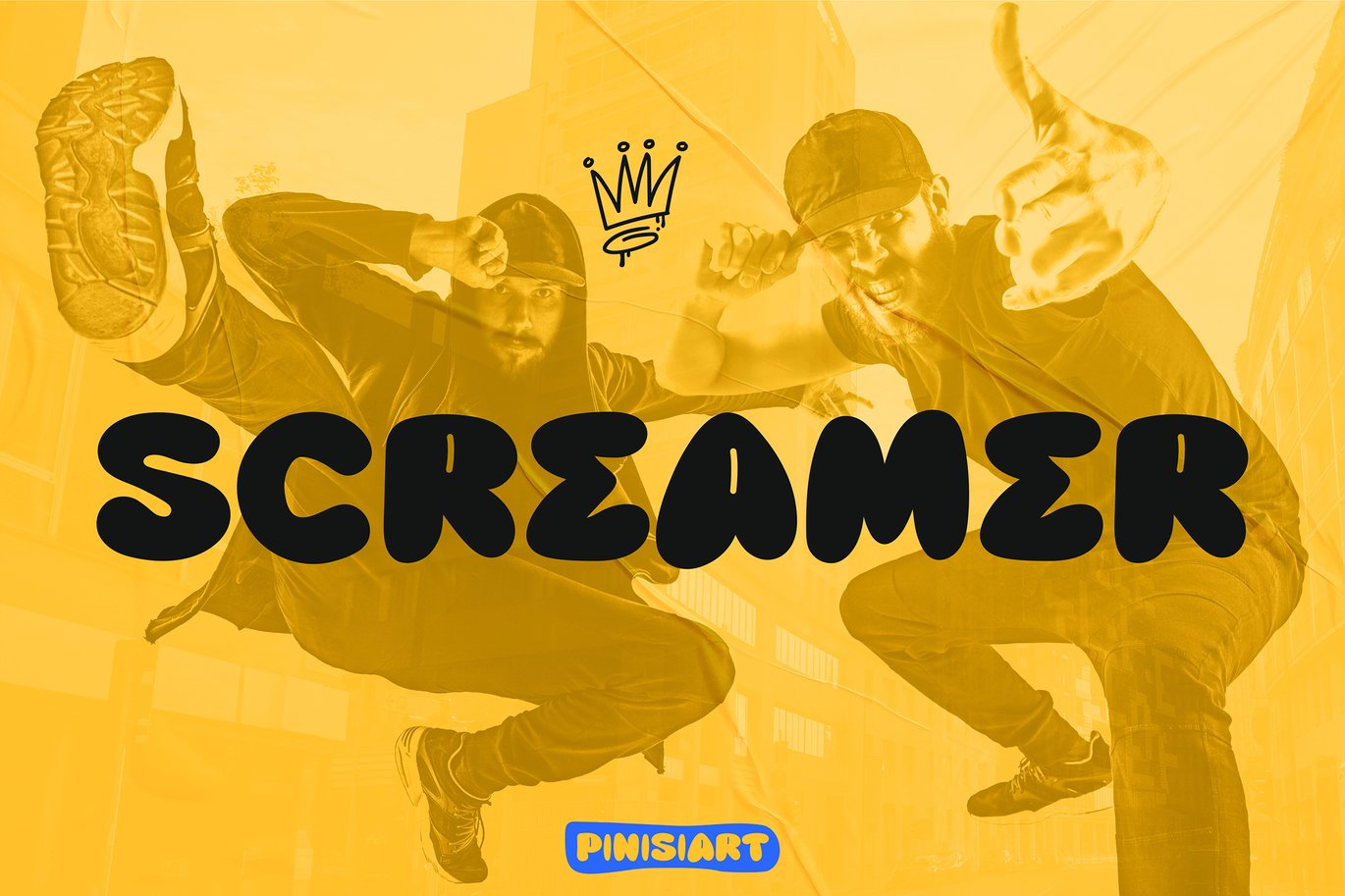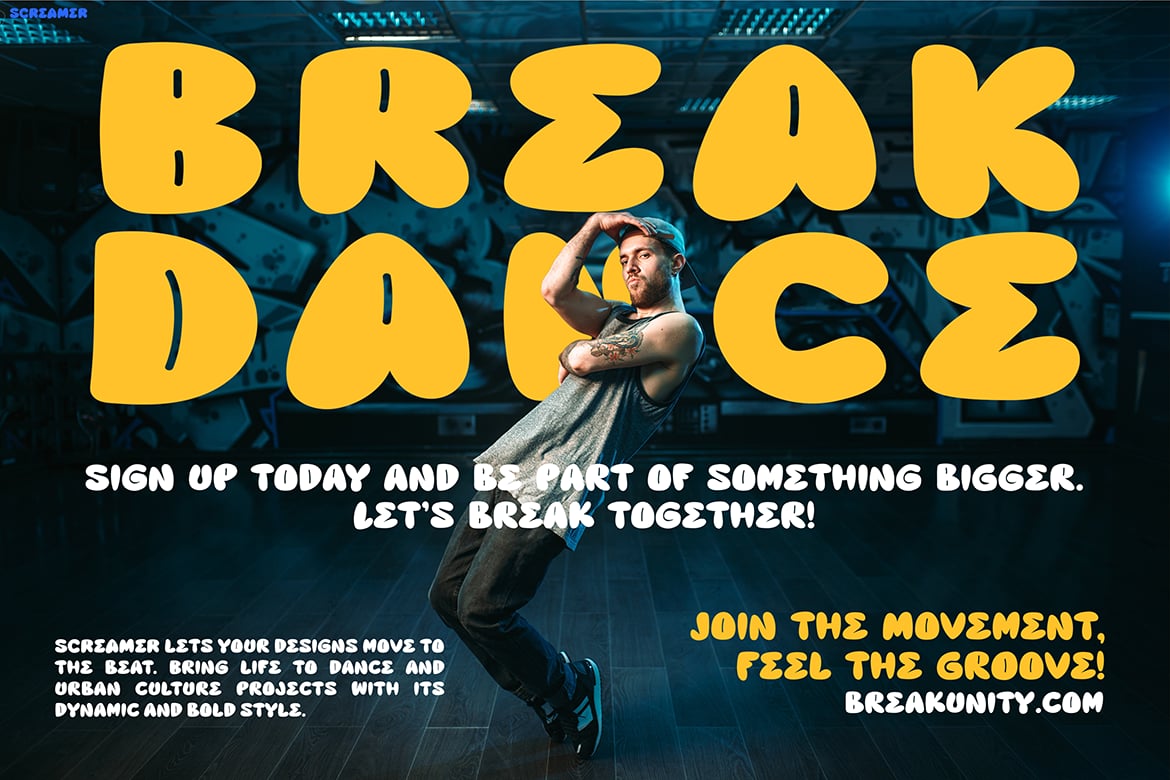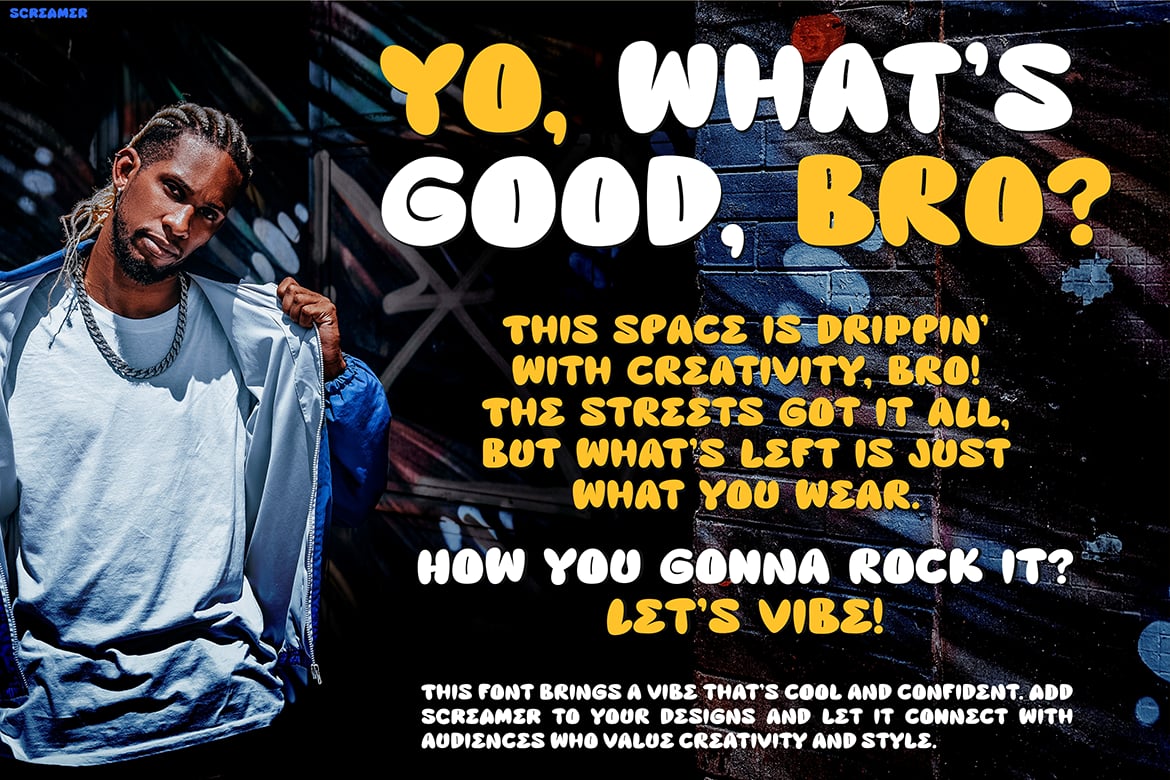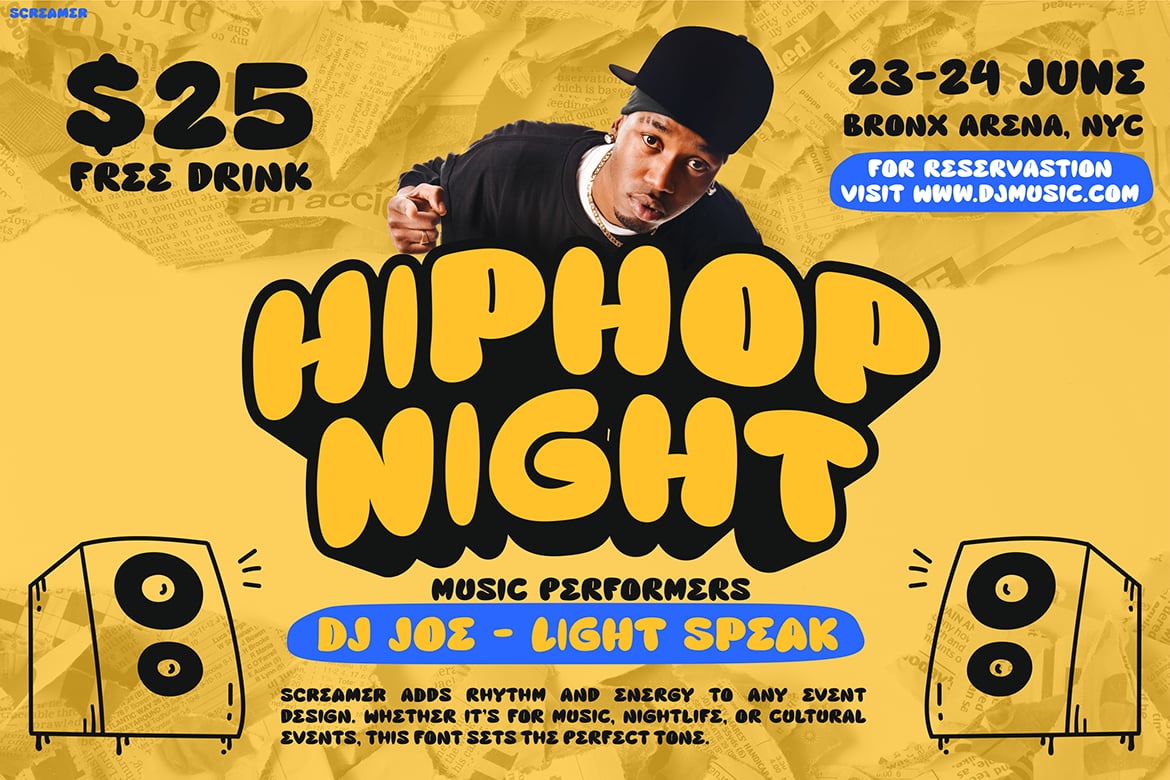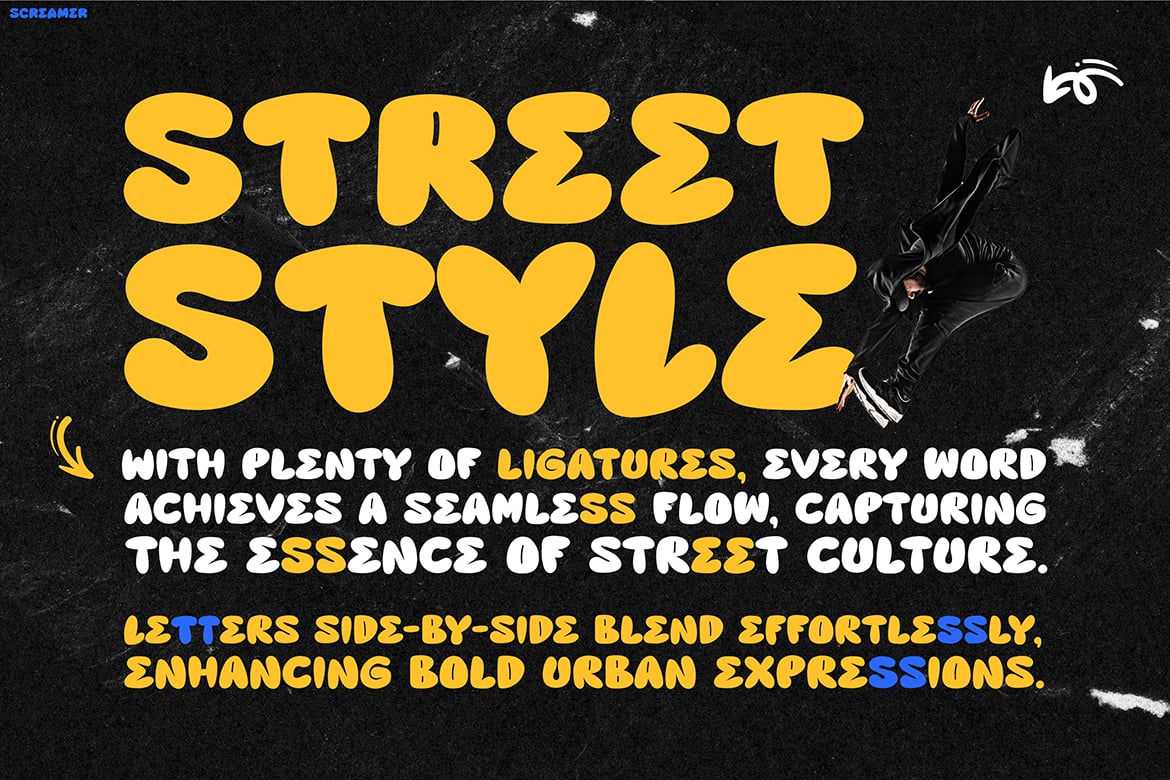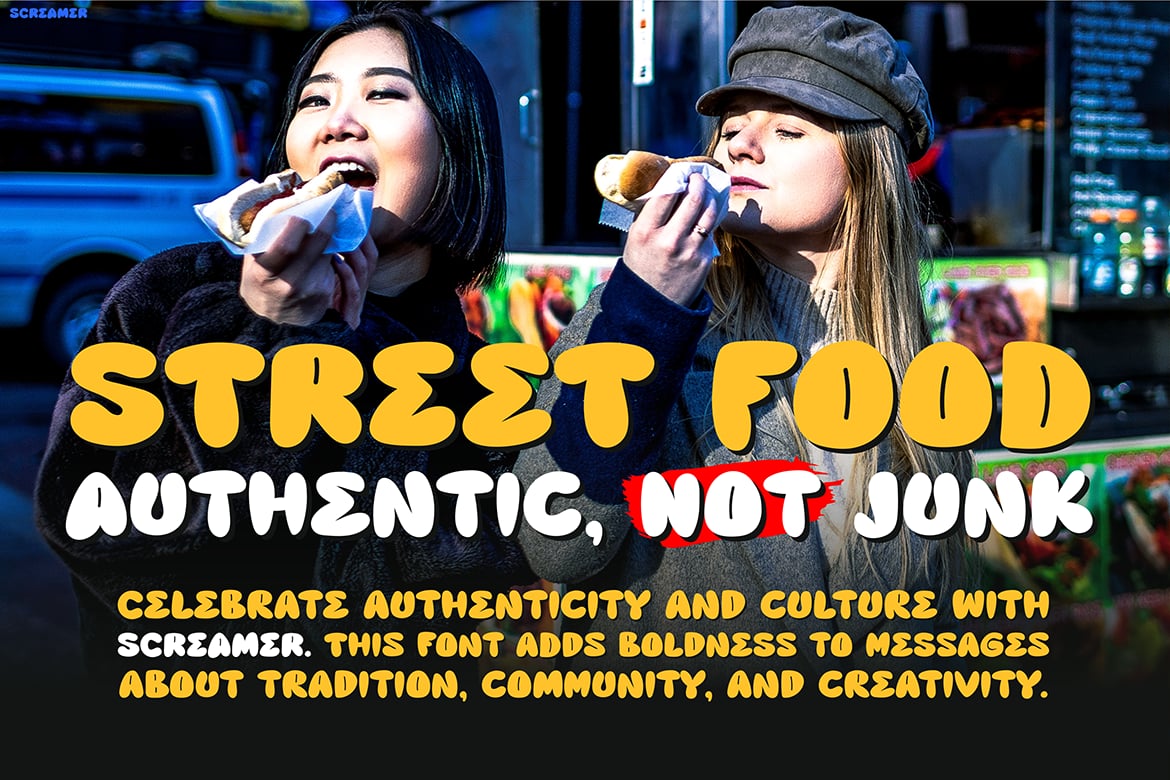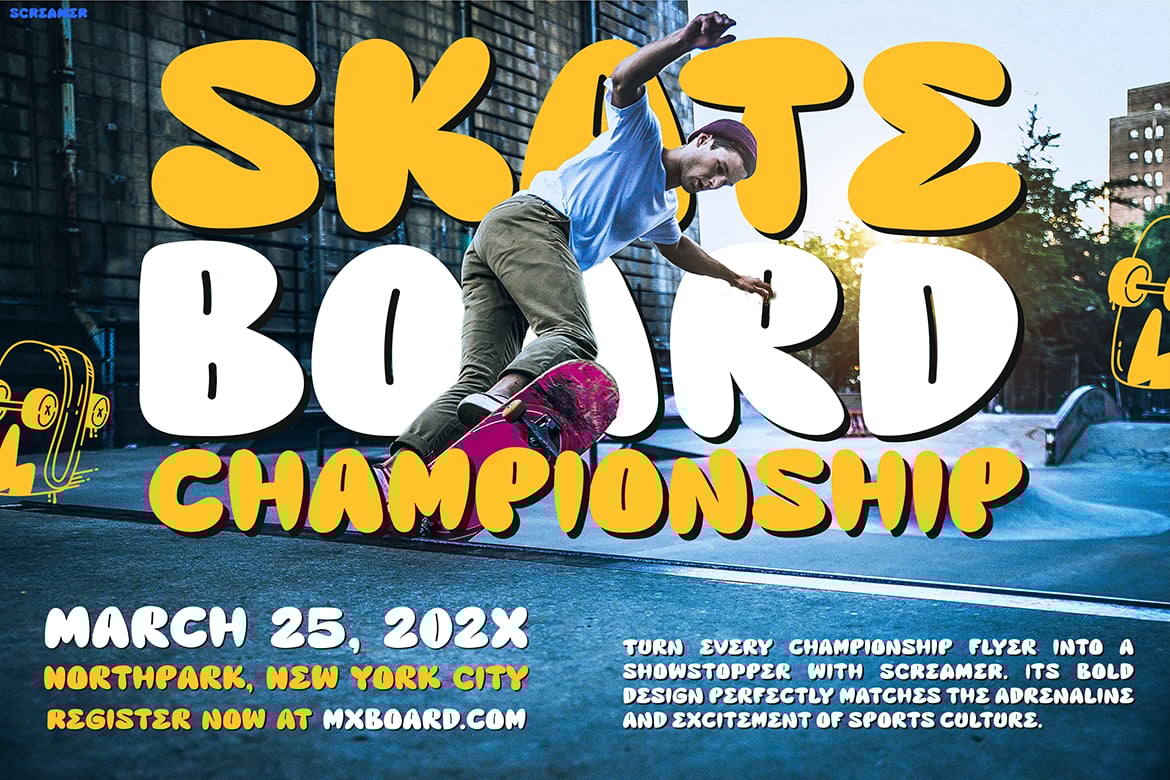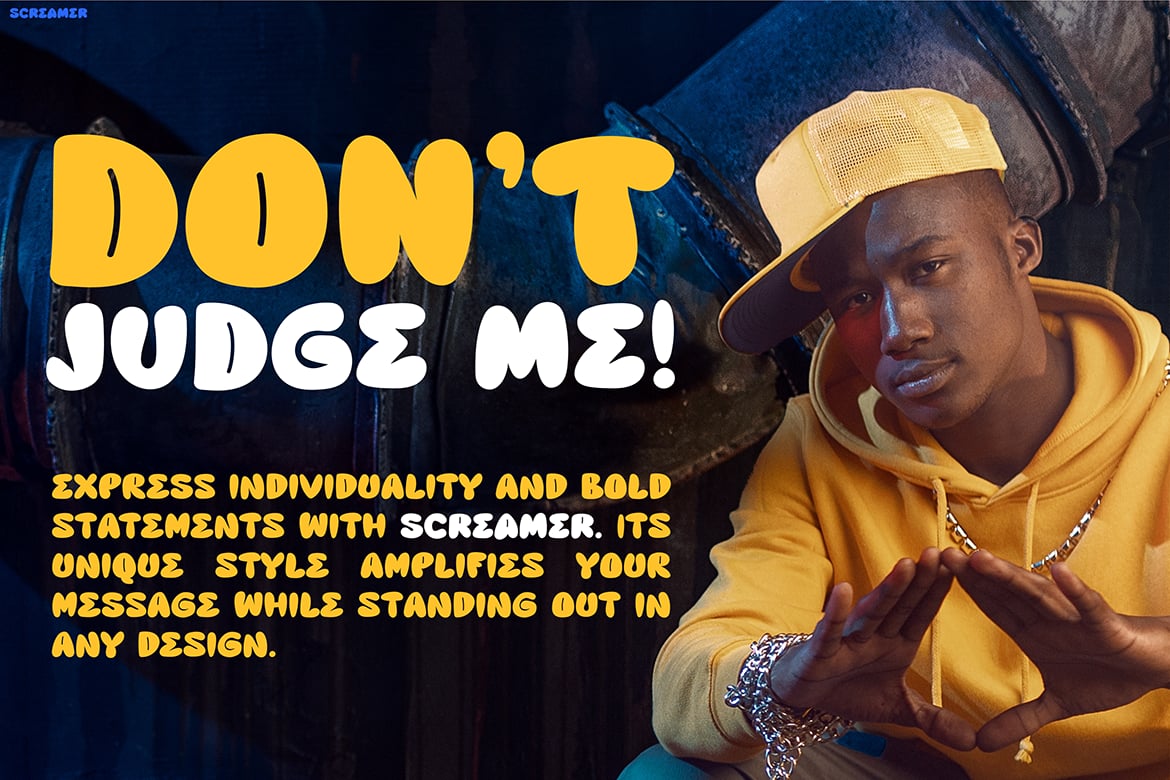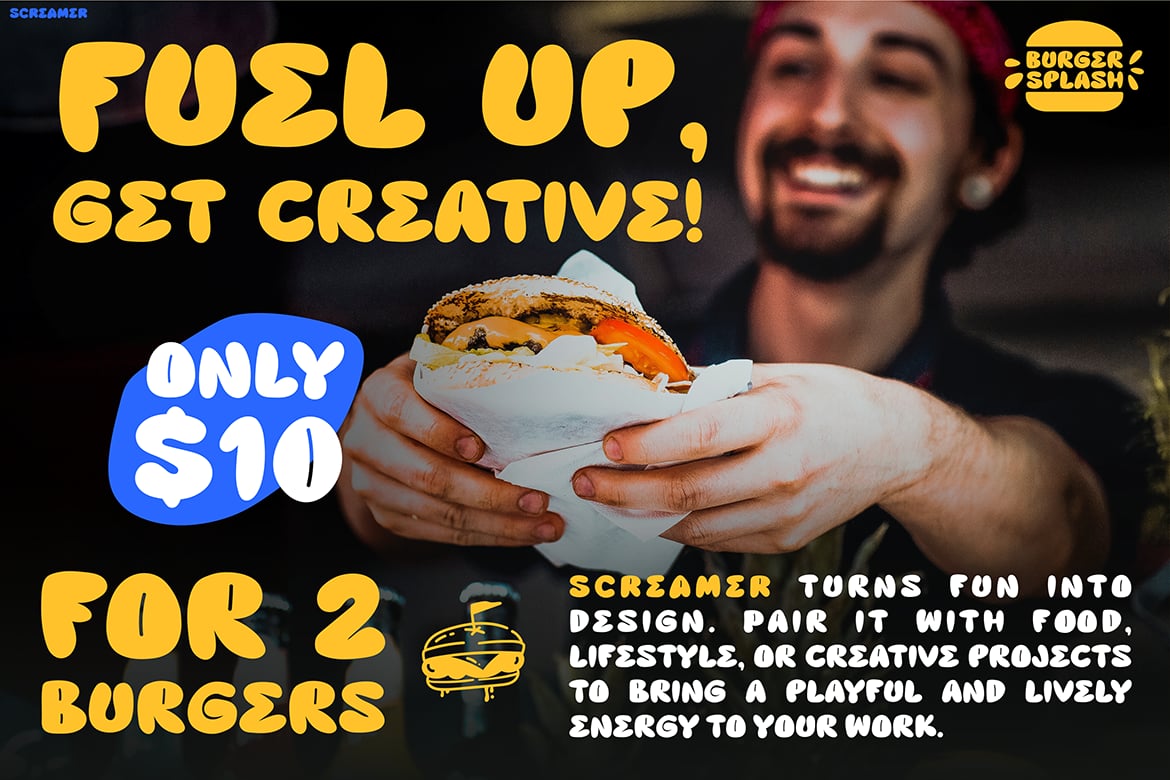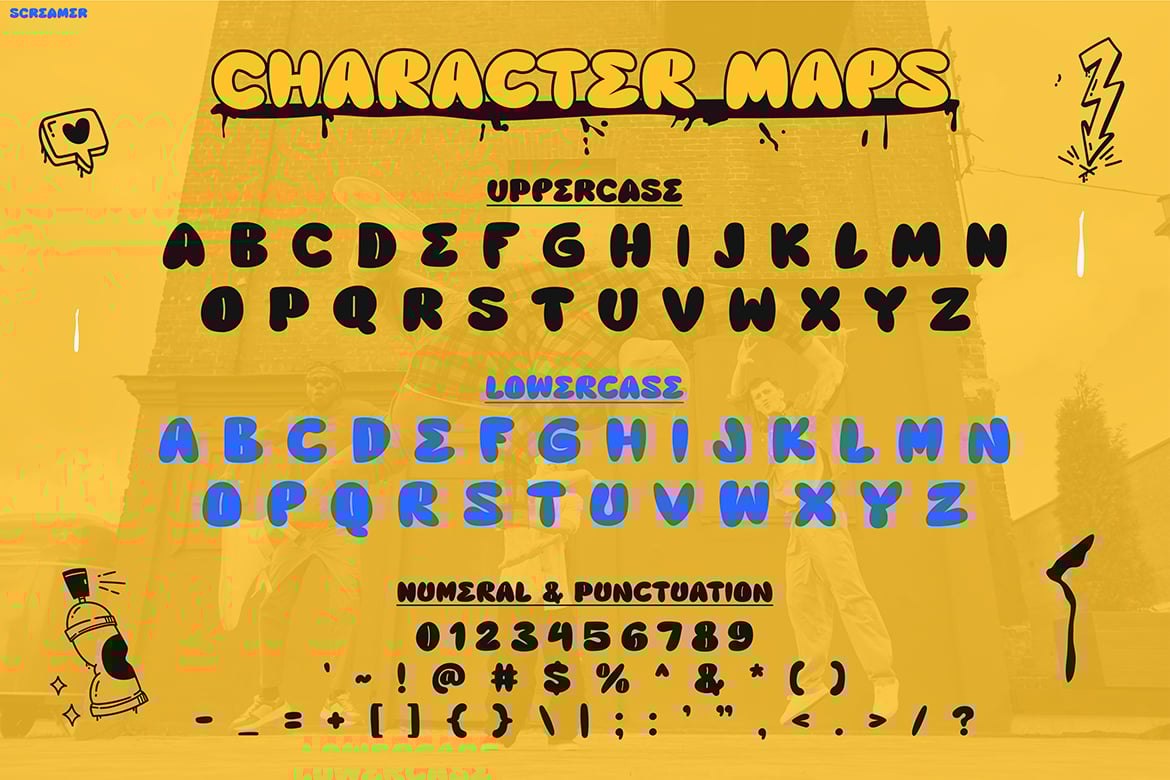
Bold Graffiti Street Font – Screamer
Screamer is a bold, high-impact graffiti font that captures the raw energy and rebellious attitude of street culture. Designed with thick, expressive strokes and rugged edges, this typeface delivers an authentic urban vibe, perfect for projects that demand edge, movement, and attitude. Whether you’re working on streetwear branding, hip-hop posters, skateboarding events, or bold social media content, Screamer ensures your message stands out loud and clear.
Key Features
- Authentic Graffiti Aesthetic – Inspired by street tagging, hip-hop culture, and urban murals.
- High-Impact Letterforms – Thick, bold, and attention-grabbing, perfect for posters, merch, and album covers.
- Versatile Usage – Ideal for streetwear branding, music events, skateboarding graphics, and youth culture promotions.
- Raw & Expressive Feel – Designed to bring energy and movement to any design project.
Screamer is made for designers, creatives, and brands who want to channel the energy of the streets into their projects. From hip-hop event posters, sneaker branding, and urban food trucks to bold YouTube thumbnails and other rebellious designs, this font is the ultimate tool for bold, confident visuals.
Break the rules, own the streets, and make a statement with Screamer!